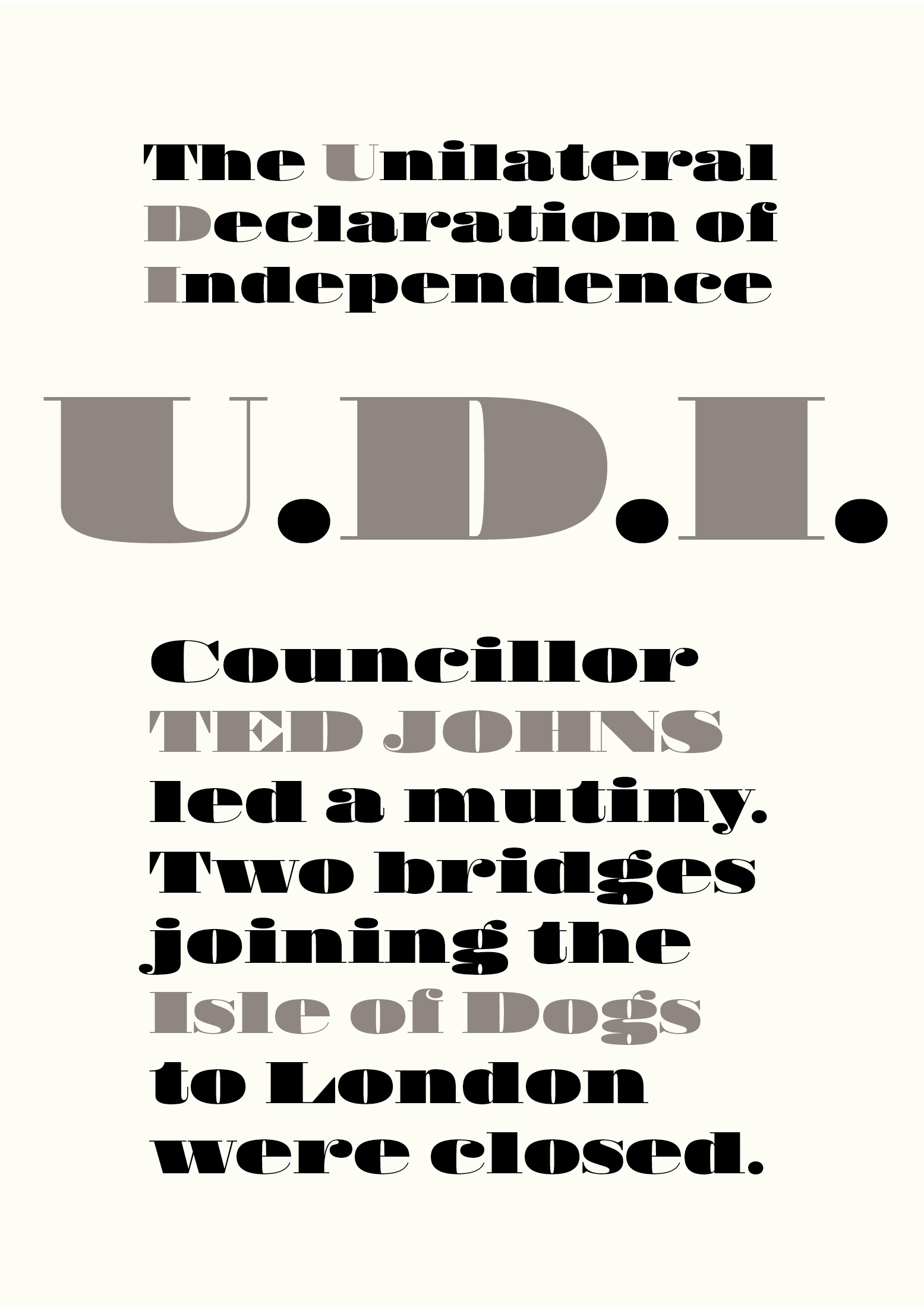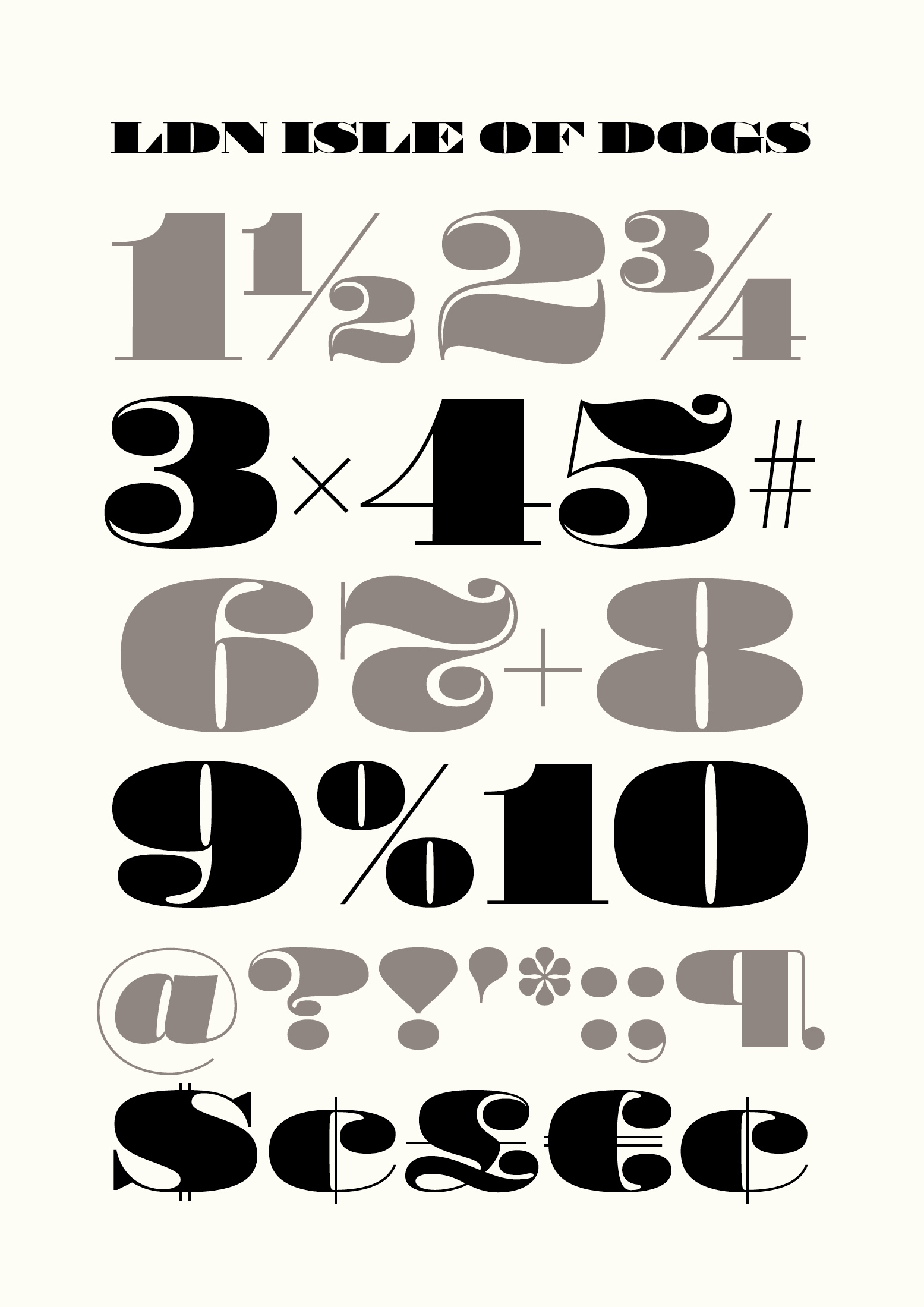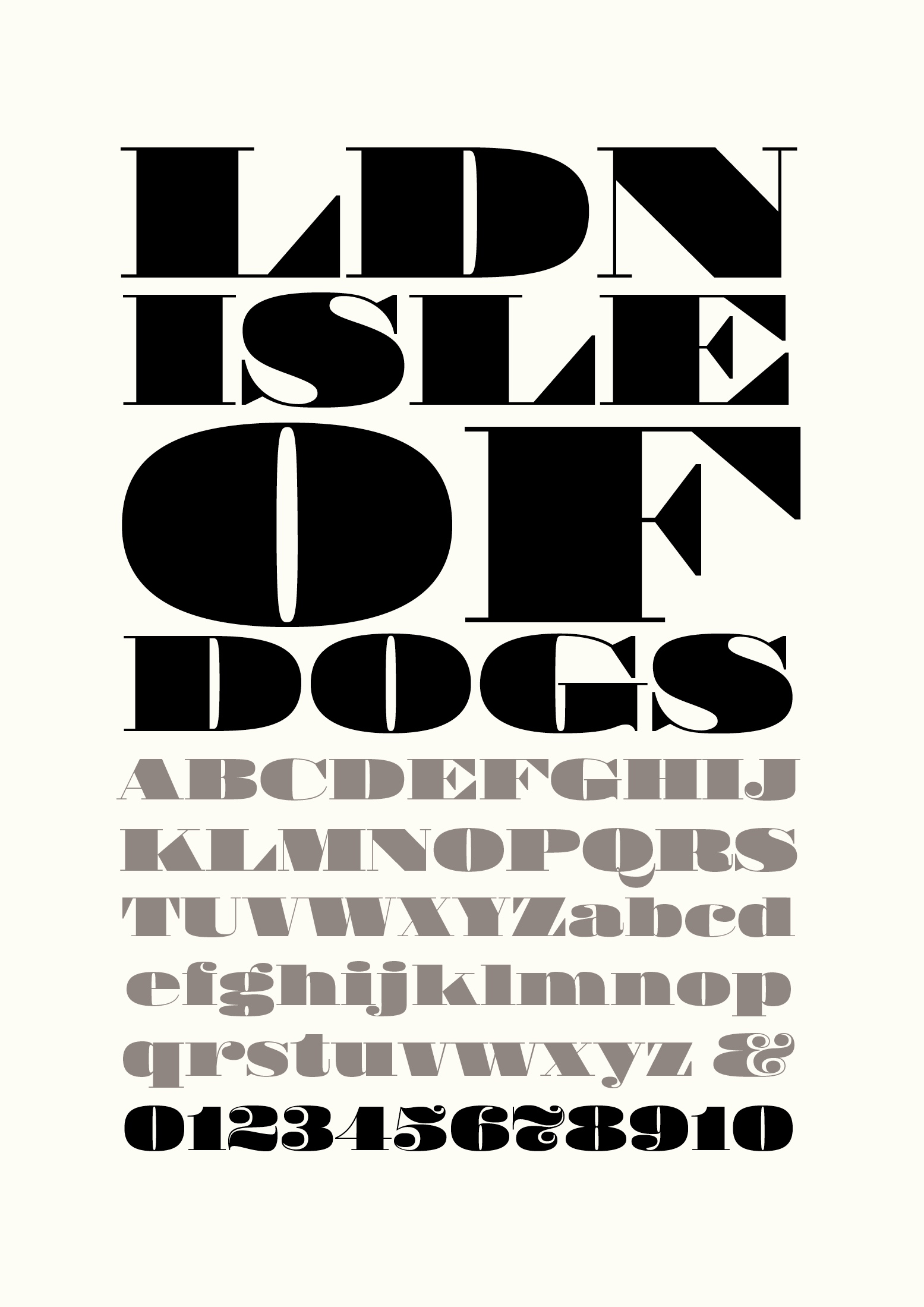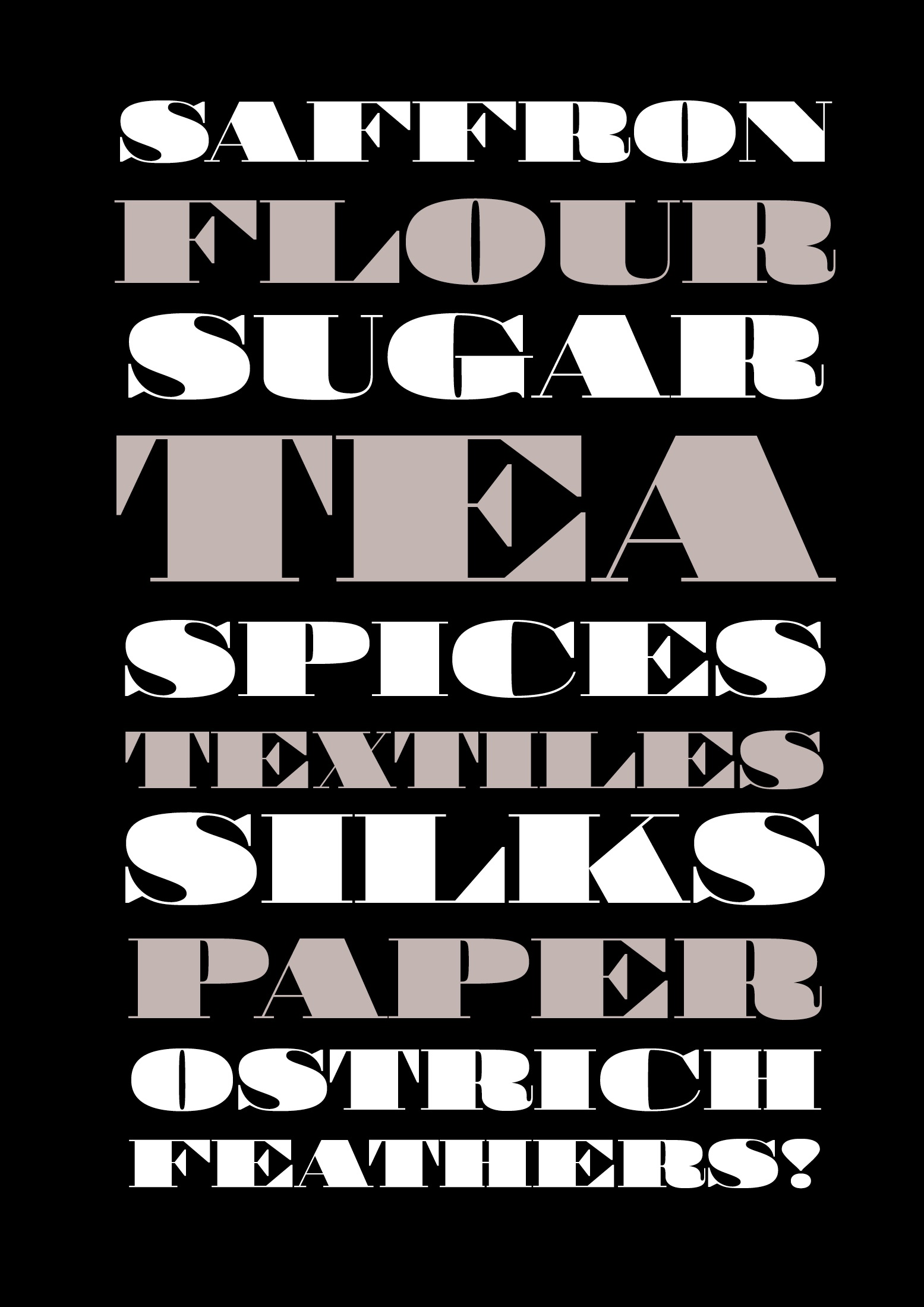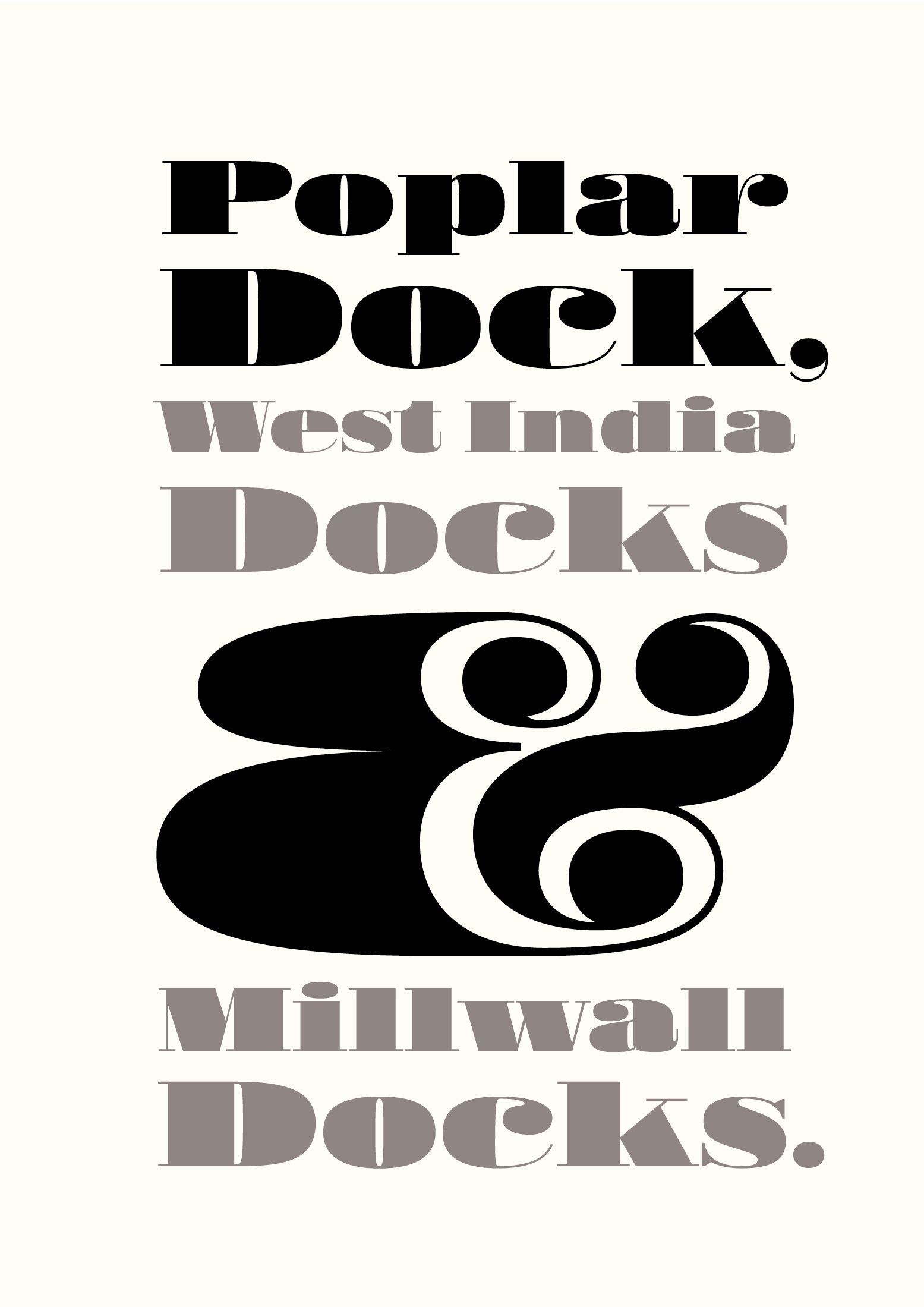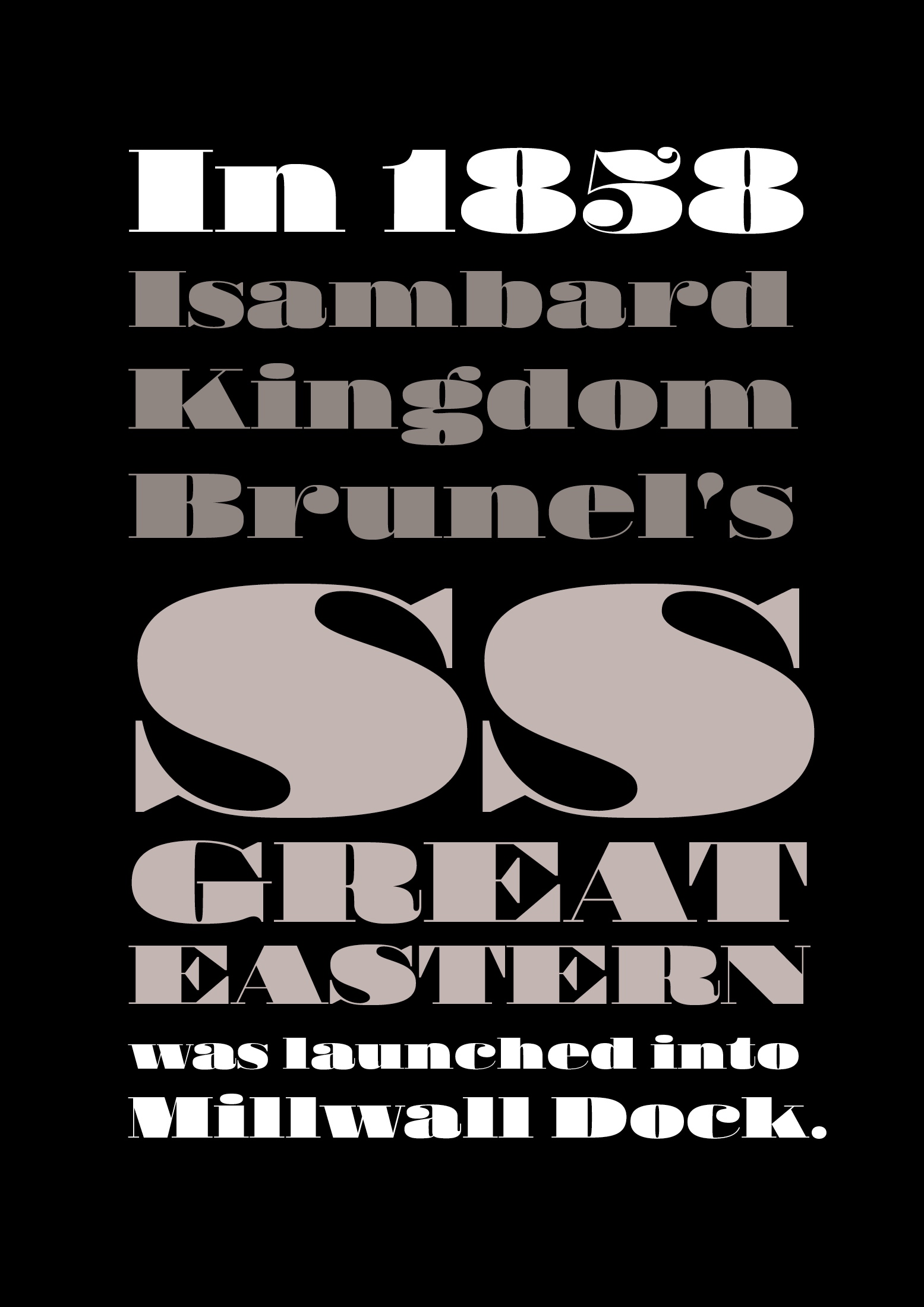
LDN Isle of Dogs
LDN Isle of Dogs celebrates a weird event which took place in March 1970: the Isle of Dogs officially issued a Unilateral Declaration of Independence from the UK as the “Republic of the Isle of Dogs”.
They were protesting at the lack of social services provided by the Greater London Council, as well as the mass unemployment among former dockyard workers.
Paul Harpin considered his earlier LDN Fatface typeface powerful, but he was inspired by a sample sheet he saw (at St Brides possibly) that was so much wider, with even greater power, so he worked to those new widths.
It seemed to emphasise the angles in the capitals and was so reminiscent of the London Docklands that he thought it would be worth giving the typeface its own name — LDN Isle of Dogs.
LDN Isle of Dogs is a distinctive display typeface, a high contrast rational serif with thick vertical stems and ultra fine horizontals.
Other key features include thin, unbracketed serifs and large ball terminals on the lower case.